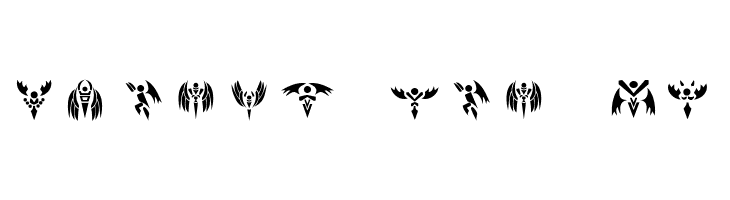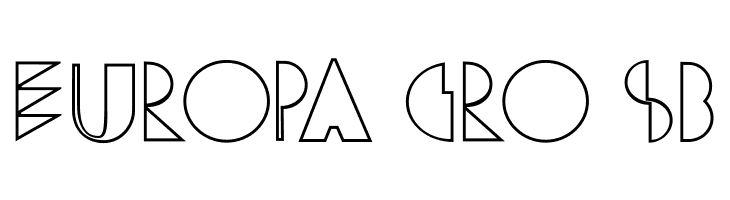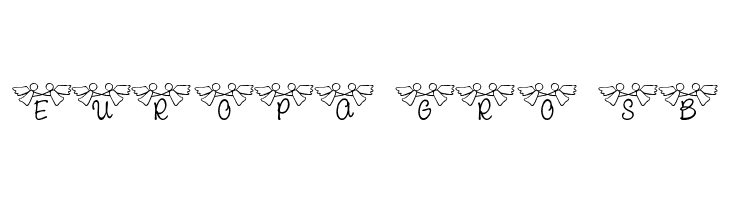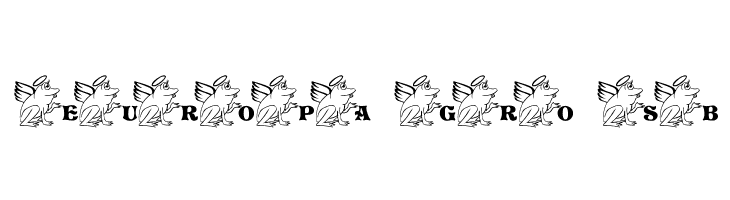
( Fonts by Angie Durbin - www.rocketdogfonts.com )
A casual, elegant handwritten font with smooth, flowing curves.
A playful, whimsical script font with interconnected, rounded letters and a handwritten aesthetic.
( Fonts by www.matchfonts.com - Michel Bujardet )
A decorative and ornate font with bold, framed characters ideal for vintage-style projects.
Decorative font with African and spiritual icon illustrations.
Whimsical, character-based illustrative font with abstract human-like figures.
An ornate and decorative script font with intricate swirls and flourishes.
( qrealib.ultra-book.com/ )
A playful, casual handwritten font with smooth, rounded strokes.
A bold, geometric font with a modern and artistic style.
( e-angelova.daportfolio.com/ )
A whimsical and ornate font with curly, decorative letterforms.
( Fonts by Andrew Hart - dirt2.com )
An elegant and decorative serif font with intricate curves and flourishes.
( Fonts by Andrew Hart - dirt2.com )
An elegant serif font with decorative swirls and flourishes.
( Fonts by Andrew Hart - dirt2.com )
An ornate and decorative font with intricate swirls and flourishes.
( Fonts by Vanessa Bays - bythebutterfly.com )
A playful, handwritten font with smooth, rounded lines and a whimsical style.
A classic serif font with elegant strokes and balanced proportions.
A bold, italic font with strong, angular strokes and a modern, dynamic style.
A bold, italic outline font with a playful and dynamic style.
A bold, narrow, and italic font with a dynamic and energetic style.
A bold, playful, and slightly condensed font with strong, angular strokes.
A bold, outlined font with a playful, comic book style.
A bold, playful font with thick, rounded characters.
( Fonts by Dennis Ludlow - Sharkshock Productions )
A bold, angular font with a futuristic and edgy design.
A playful, whimsical handwritten font with uneven strokes and a casual style.
A playful, whimsical handwritten font with loose, flowing strokes.